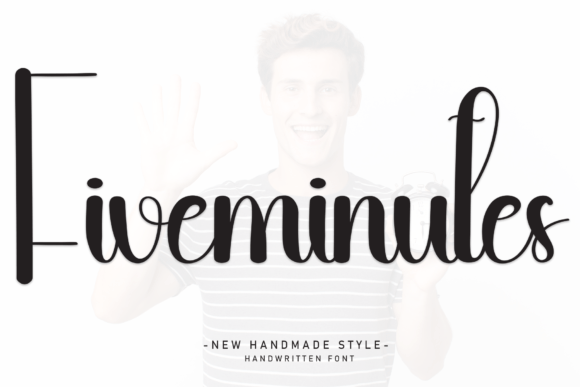
Unleash the magic of Christmas with Fiveminutes Font – an enchanting script font that radiates warmth, joy, and festive cheer. Designed with meticulous elegance by the talented William Jhordy, Fiveminutes is not just a font; it's a gateway to a winter wonderland of creative possibilities.
Immerse yourself in the captivating charm of Fiveminutes, a font that echoes the heartfelt sentiments of the holiday season. Its delicate strokes and effortless flow evoke the cozy crackle of a fireplace, the sweet aroma of gingerbread cookies baking in the oven, and the joyous laughter of loved ones gathered together.
With Fiveminutes as your creative companion, envision your Christmas cards as masterpieces of heartfelt expression. Let your words dance across the page with a touch of whimsy, carrying messages of love, gratitude, and holiday cheer. Each letter, meticulously crafted and adorned with a touch of festive flair, will transform your cards into cherished keepsakes that warm hearts and spread joy.
Extend the Fiveminutes magic to your Christmas décor, creating personalized ornaments, festive banners, and enchanting gift tags that add a touch of handcrafted charm to your holiday displays. Its versatile nature lends itself seamlessly to a myriad of designs, allowing your creativity to shine.
But Fiveminutes is more than just a Christmas delight; it's a font that carries the spirit of the season throughout the year. Its friendly and approachable vibe adds a heartwarming touch to wedding invitations, baby shower announcements, and birthday cards, infusing every occasion with a sense of warmth and celebration.